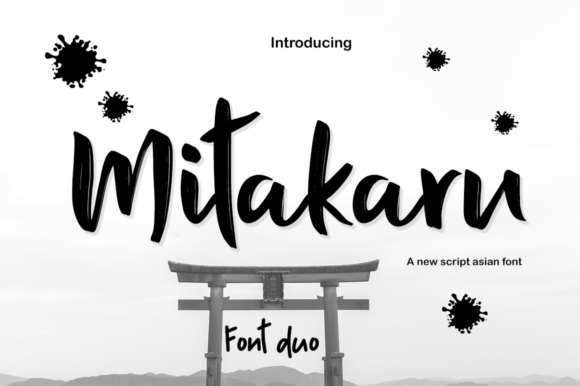
Welcome to the world of Mitakaru, a script font that exudes charm and sophistication, inviting you to add a personal touch to your digital communications. Mitakaru's elegant curves and flowing lines effortlessly elevate your words, transforming them into captivating expressions of your individuality. Crafted with meticulous attention to detail, this font captures the essence of handwritten beauty, adding a touch of warmth and authenticity to your messages.
Mitakaru is the perfect choice for creating email signatures that leave a lasting impression. Its graceful strokes and carefully crafted swashes add a touch of artistry to your emails, making them stand out from the crowd. Whether you're a creative professional, a business owner, or simply someone who appreciates the finer things in life, Mitakaru is the ideal font to showcase your unique style and leave a lasting impression.
With Mitakaru, you'll find endless opportunities to express yourself creatively. From logos and product packaging to wedding invitations and branding, this font adds a touch of elegance and charm to any project. Its versatility extends to headlines, signage, labels, signatures, book covers, posters, quotes, and more. Unleash your imagination and let Mitakaru transform your words into visual masterpieces.